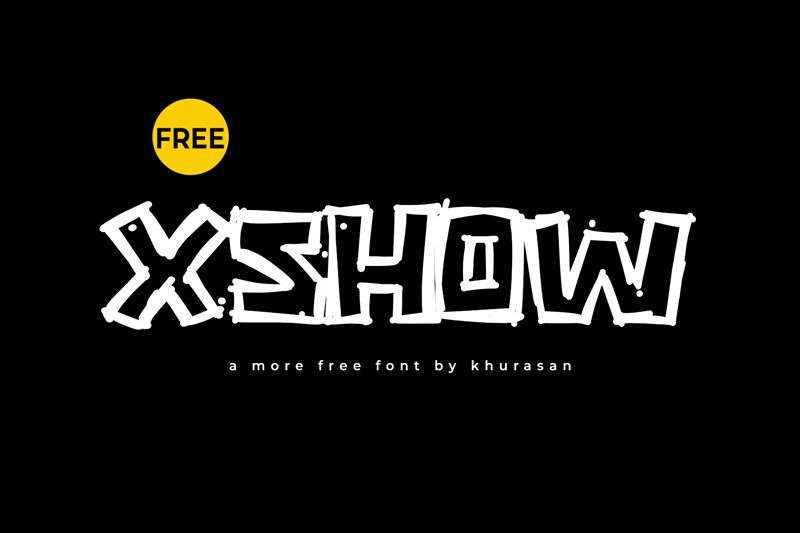
Xshow, a distinctive display font crafted by Khurasan, commands attention with its bold and expanded character set. The outlined, sketchy style of Xshow exudes a raw energy and artistic flair that is immediately captivating. Its striking presence is characterized by a deliberate imbalance, evoking the spontaneity of hand-drawn artwork while maintaining legibility.
The aesthetic appeal of Xshow lies in its unique ability to blend the urban grittiness of graffiti with the precision of digital design. This font's expanded width offers a commanding visual impact, making it an ideal choice for headers, titles, and any project requiring a statement piece.
With its robust weight and expressive outlines, Xshow shines across various creative mediums such as posters, album covers, brand identities, and event promotions. This font's versatility ensures that it can adapt to both playful contexts and more avant-garde designs.